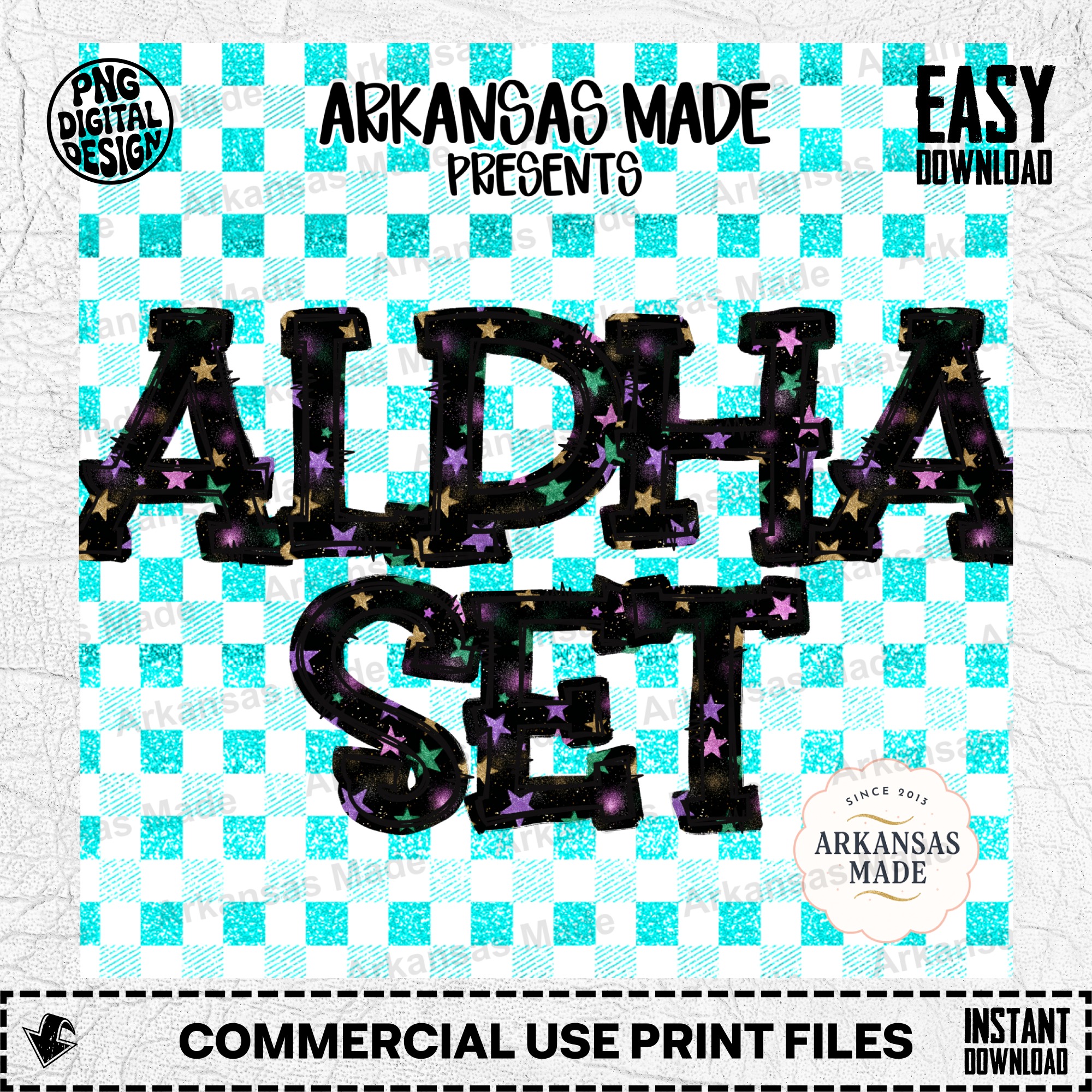
Elevate your creations with our dazzling Starry Night Glitter Alpha Set PNG, a digital download of sparkling celestial letters perfect for all your DIY projects. This vibrant alpha set features bold black letters adorned with faux gold, purple, and green glitter stars, adding a magical touch to any design. Ideal for crafters, designers, and small business owners, it’s perfect for custom t-shirts, unique party invitations, scrapbooking, or eye-catching sublimation designs. Ignite your creativity and craft personalized gifts or striking merchandise with this instant download kit.